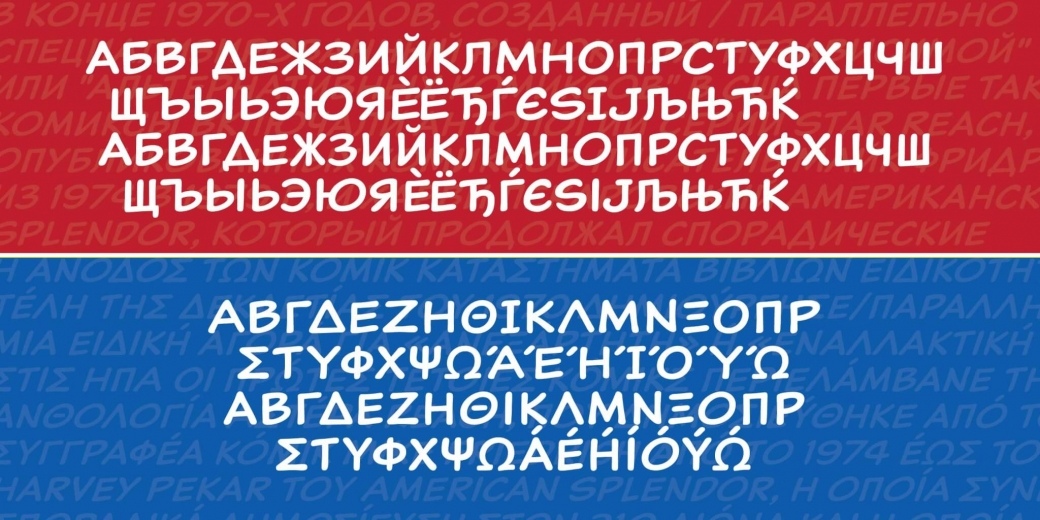
Classic Comic Font
Classic Comic Font is perfect for comic book publishing, children's entertainment marketing, superhero-themed events, vintage cartoon branding, nostalgic toy packaging, retro animation graphics, classic comic store signage, and timeless children's literature design.
What makes Classic Comic Font exciting is its nostalgic adventure that embodies the timeless charm and heroic spirit of golden age comics with authentic vintage character and classic storytelling appeal. The font features bold letterforms with comic book proportions and heroic character that evoke speech bubbles, action panels, and the enduring excitement of classic superhero adventures and vintage comic storytelling. Its distinctive comic styling and nostalgic appeal communicate adventure, heroism, and classic entertainment, making every message feel drawn from the golden age and touched by the timeless magic of classic comic book heroism and vintage storytelling tradition.
The Classic Comic Font family includes regular weight with uppercase and lowercase letters, numerals, punctuation marks, and special characters. Premium versions often feature comic alternates and vintage elements that enhance the classic, heroic aesthetic perfect for entertainment and nostalgic applications.
This iconic vintage typeface brings instant nostalgia and comic credibility to any classic entertainment project. Classic Comic Font Free Download offers exceptional value for entertainment businesses and nostalgic brands seeking to communicate classic heroism, vintage charm, and timeless comic appeal to comic enthusiasts and nostalgic entertainment lovers.
The heroic character of Classic Comic Font makes it particularly valuable for comic publishers, vintage toy companies, and nostalgic entertainment venues. Its excellent readability ensures comic dialogue and entertainment messaging remain clear while maintaining the distinctive vintage aesthetic that appeals to audiences seeking authentic classic comic experiences and nostalgic heroic entertainment.
Vintage entertainment marketers appreciate how Classic Comic Font effortlessly conveys comic authenticity and nostalgic charm. The font's bold proportions and comic details create compelling brand materials that establish connections with audiences who value classic comics, heroic storytelling, and the timeless appeal of vintage comic book adventures and golden age entertainment.
The versatile nostalgia of this typeface extends to retro gaming, vintage collectibles, and classic entertainment education where comic authenticity enhances nostalgic credibility and heroic appeal. Classic Comic Font Free Download provides creative professionals with an essential tool for developing memorable, adventure-driven designs that resonate with audiences who embrace classic comics, heroic tradition, and the enduring excitement of vintage comic book storytelling in their entertainment and nostalgic experiences.